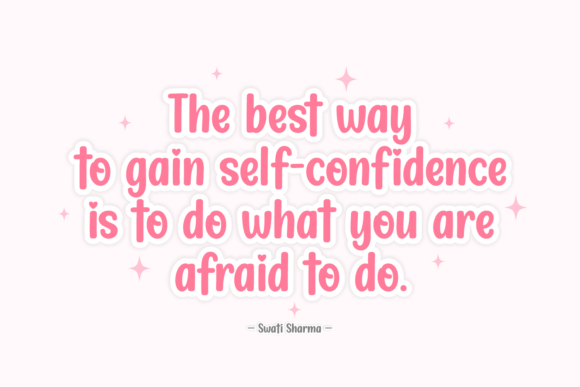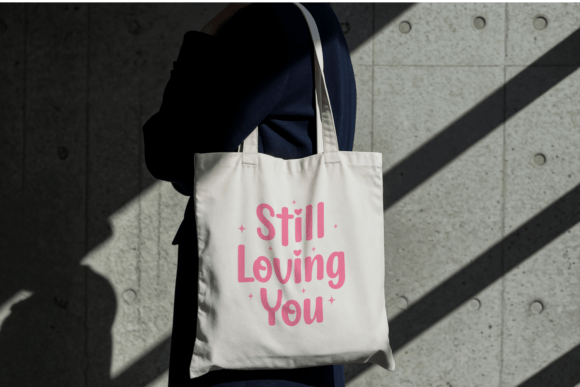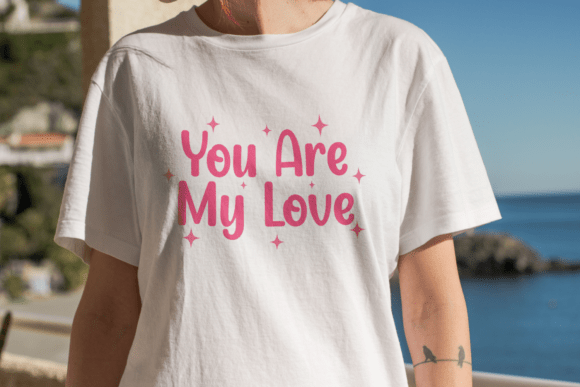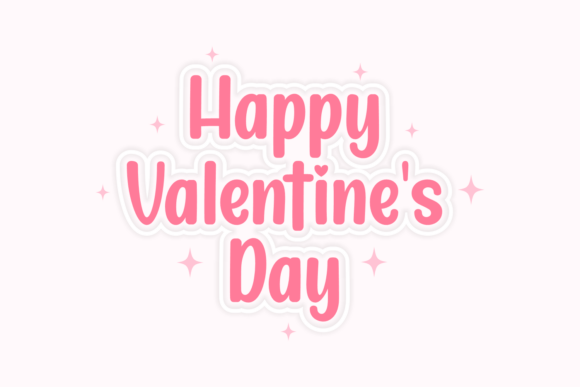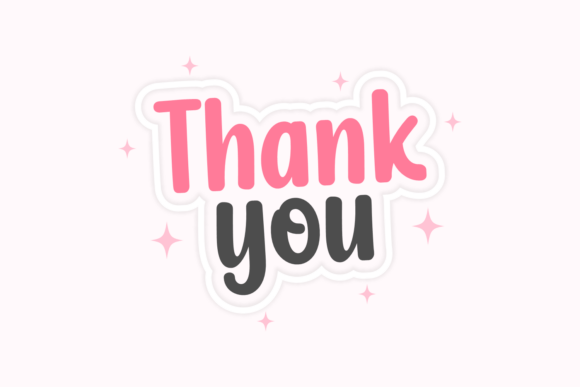
Introducing the Admirable Valentine’s Font: A Sweet and Professional Choice for Your Seasonal Designs
Valentine’s Day is just around the corner, and with it comes the need for charming and eye-catching designs that convey love, warmth, and friendliness. If you’re a designer, crafter, or DIY enthusiast looking for the perfect font to make your creations stand out, look no further than the Admirable Valentine’s font. This bold and inviting display typeface is specifically designed to bring a sense of warmth and professional charm to your seasonal designs, making it an ideal choice for Valentine’s Day branding, children’s gift packaging, and playful social media campaigns.
What Makes the Admirable Valentine’s Font So Special?
The Admirable Valentine’s font is characterized by its thick, rounded letterforms and a clean, “puffy” aesthetic that radiates friendliness and joy. The font’s bold weight and gentle curves ensure that your message stands out with a sweet, professional finish, making it perfect for a wide range of applications, from digital headers to physical merchandise. One of the standout features of this font is the incorporation of heart-shaped dots over the lowercase “i” and “j,” making it an unmistakable choice for Valentine’s Day-themed designs.
Key Features of the Admirable Valentine’s Font
- Thick, Rounded Letterforms: The font’s bold and rounded letterforms give it a friendly and approachable feel, perfect for creating eye-catching designs that convey love and warmth.
- Clean, “Puffy” Aesthetic: The font’s clean and puffy aesthetic makes it highly legible and visually appealing, ensuring that your message stands out in any design.
- Heart-Shaped Dots: The incorporation of heart-shaped dots over the lowercase “i” and “j” adds a playful and romantic touch to the font, making it perfect for Valentine’s Day-themed designs.
- High Legibility: The font’s bold weight and clean design ensure high legibility, making it suitable for use in digital headers, physical merchandise, and a wide range of other applications.
Ways to Use the Admirable Valentine’s Font
The Admirable Valentine’s font is incredibly versatile and can be used in a wide range of applications, including:
- Valentine’s Day Branding: Use the font to create eye-catching logos, packaging, and marketing materials that convey love and warmth.
- Children’s Gift Packaging: The font’s playful and friendly aesthetic makes it perfect for use in children’s gift packaging, such as stickers, labels, and gift tags.
- Playful Social Media Campaigns: Use the font to create engaging and shareable social media content that conveys love and joy, such as Valentine’s Day-themed graphics and animations.
- Stickers and Decals: The font’s bold and colorful aesthetic makes it perfect for use in stickers and decals, perfect for decorating laptops, water bottles, and other personal items.
- “Mommy and Me” Apparel: Use the font to create adorable and matching “Mommy and Me” apparel, such as t-shirts, hoodies, and hats.
- Heartfelt Greeting Cards: The font’s sweet and professional finish makes it perfect for use in heartfelt greeting cards, perfect for Valentine’s Day, anniversaries, and other special occasions.
Why Choose the Admirable Valentine’s Font?
With so many fonts to choose from, why should you choose the Admirable Valentine’s font? Here are just a few reasons:
- Unique and Playful Aesthetic: The font’s unique and playful aesthetic sets it apart from more traditional fonts, making it perfect for designers and crafters looking to create eye-catching and memorable designs.
- High Legibility: The font’s bold weight and clean design ensure high legibility, making it suitable for use in a wide range of applications.
- Professional Finish: The font’s sweet and professional finish ensures that your designs look polished and put-together, perfect for professional designers and crafters.
In conclusion, the Admirable Valentine’s font is a bold and inviting display typeface that is perfect for designers, crafters, and DIY enthusiasts looking to create eye-catching and memorable designs for Valentine’s Day and beyond. With its unique and playful aesthetic, high legibility, and professional finish, this font is sure to become a go-to choice for anyone looking to convey love, warmth, and friendliness in their designs.
| Author | Feri (7NTypes) |